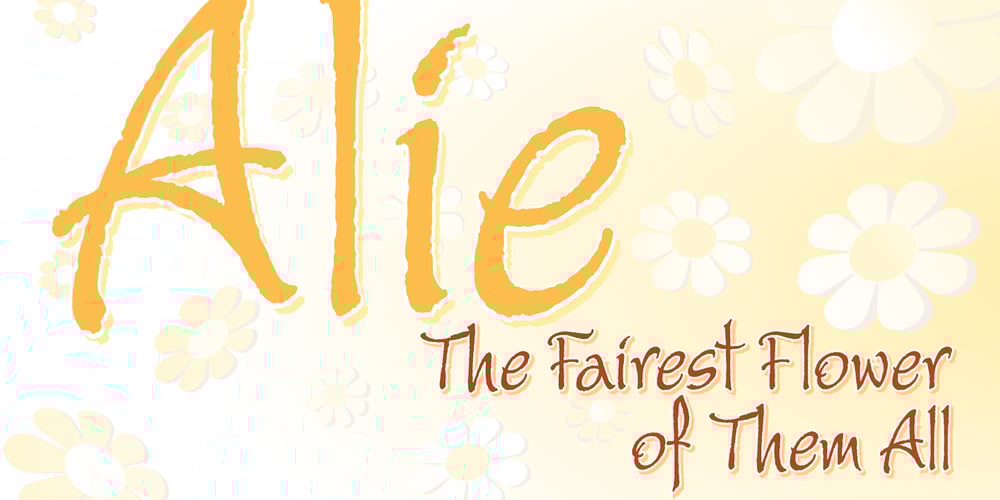
Alie
Alie font
Alie Font Family was designed by James A. Lebbad and published by Lebbad Design. Alie contains 1 styles and family package options. Alie is a casual textured script with sophisticated flair. The font contains several ligatures and alternates.